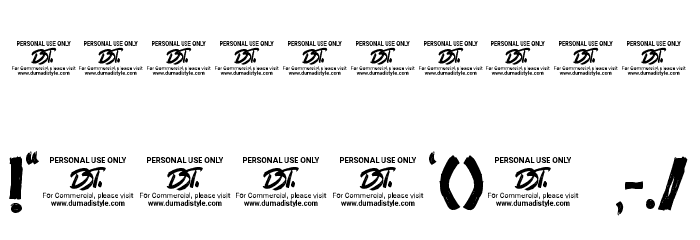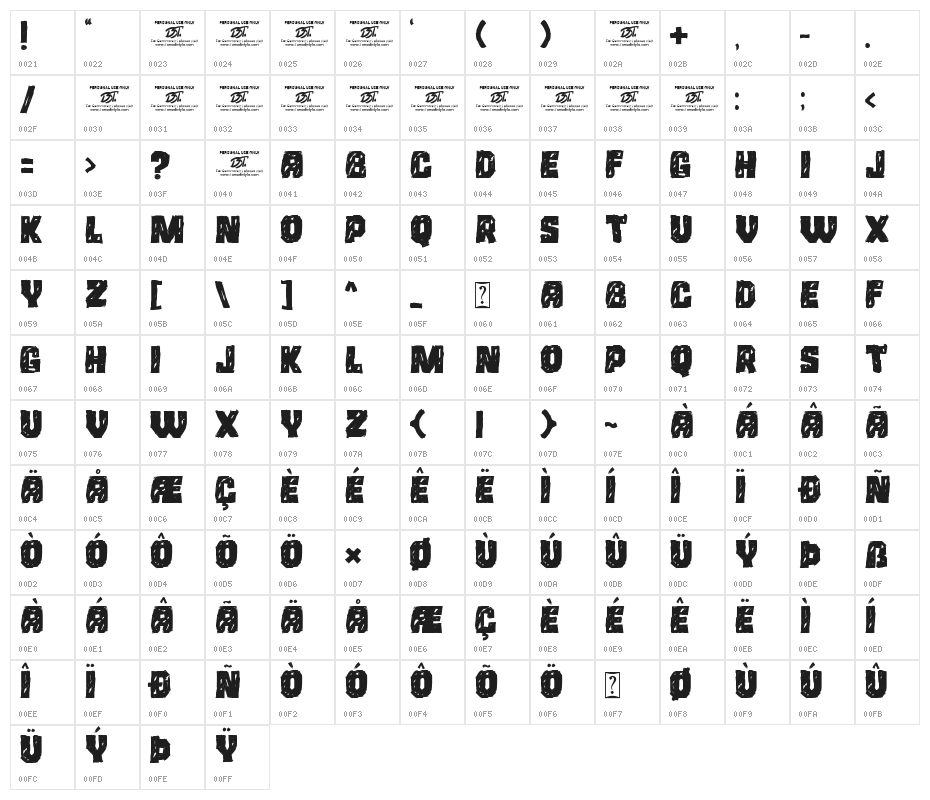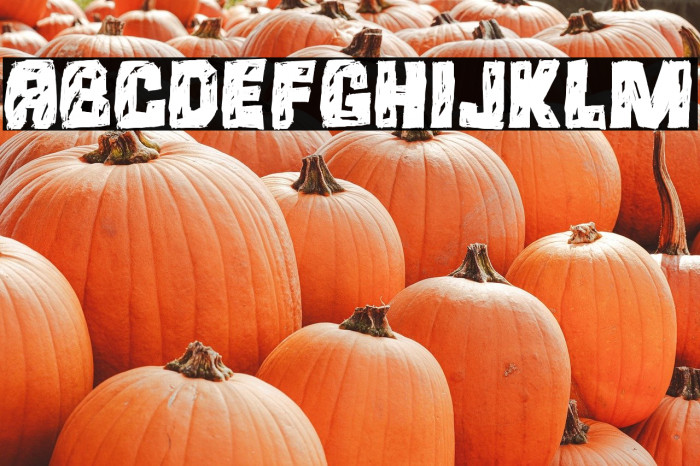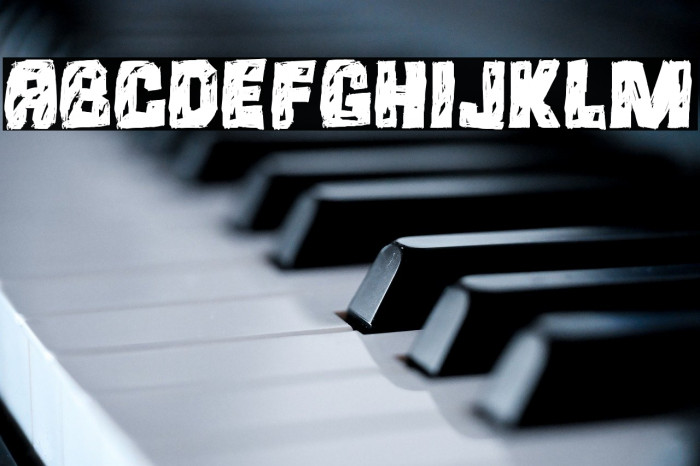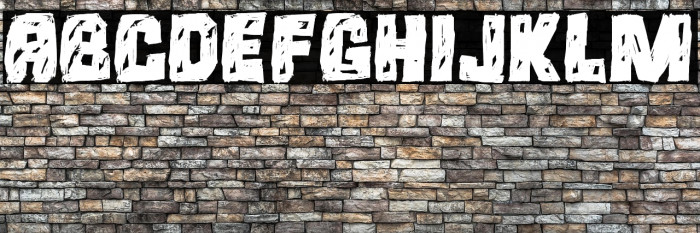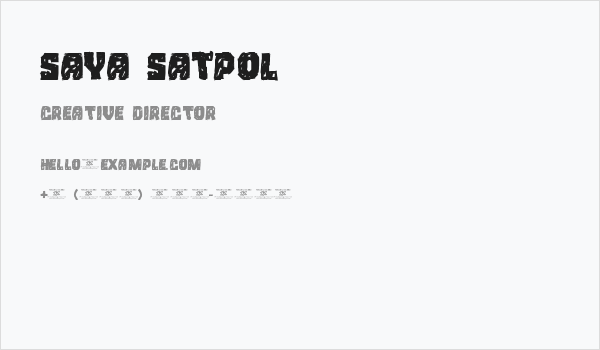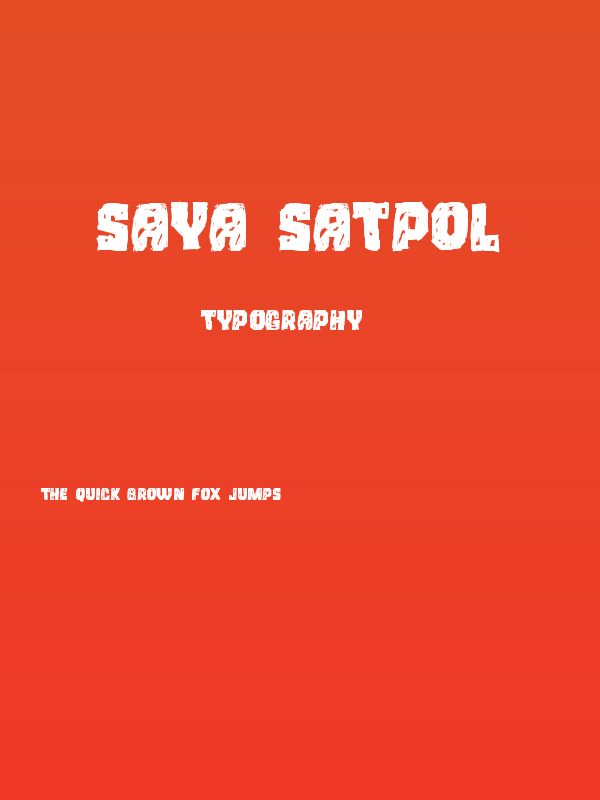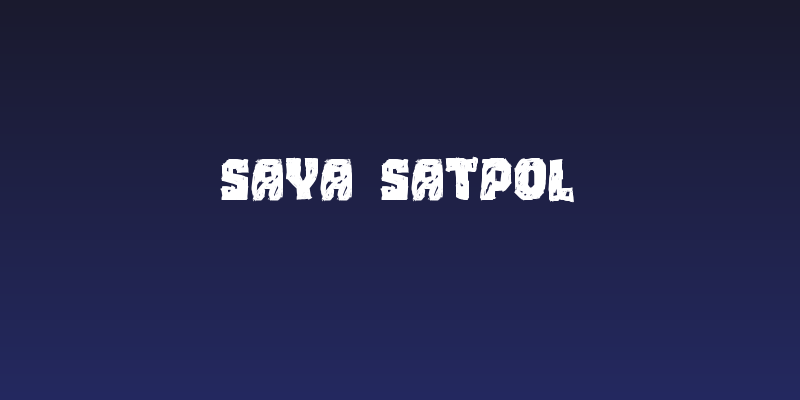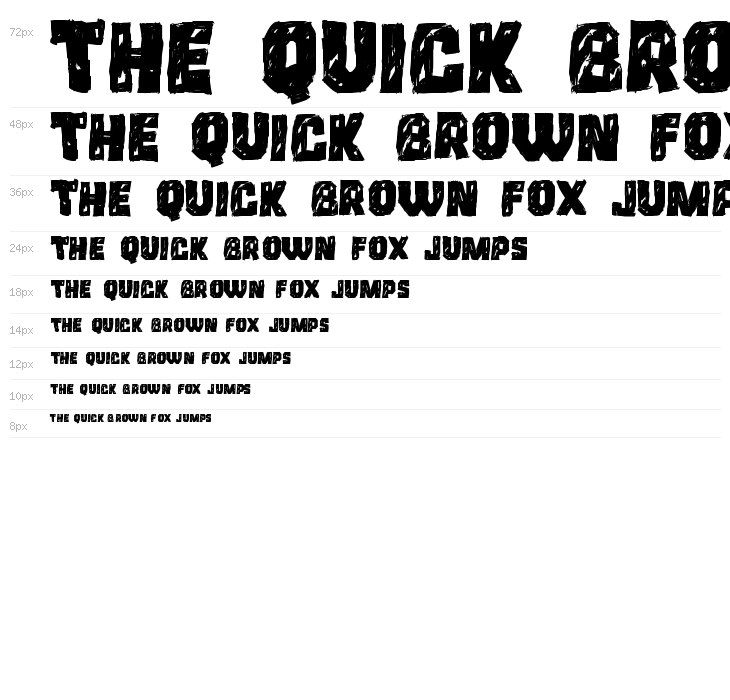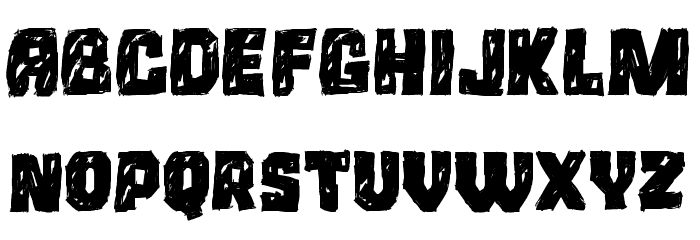
Saya Satpol Font
Saya Satpol Description
This font features a bold and rugged style, characterized by its distressed, grunge-like appearance. The uppercase letters are heavily textured, giving them a worn and weathered look. Each character has a unique, hand-crafted feel, with irregular edges and a bold presence. The font's design suggests a sense of strength and edginess, making it suitable for projects that require a raw and impactful aesthetic. The bold strokes and uneven lines contribute to its distinctive and eye-catching appearance, ideal for creating a dramatic visual impact.
| Proposed Projects | Ideal for posters, album covers, branding for edgy products, and any design requiring a strong, impactful look. |